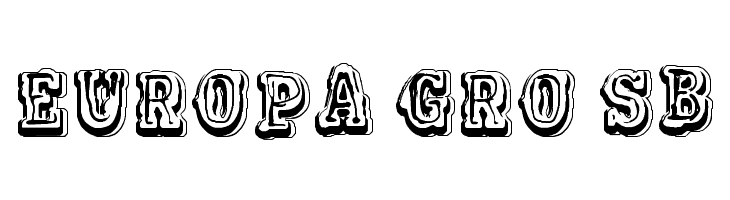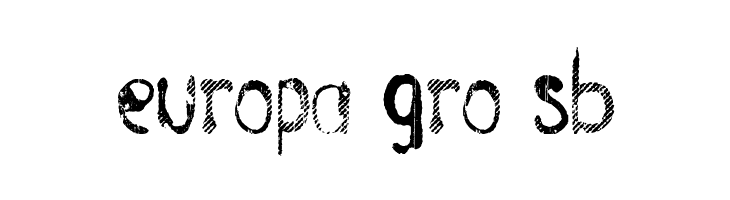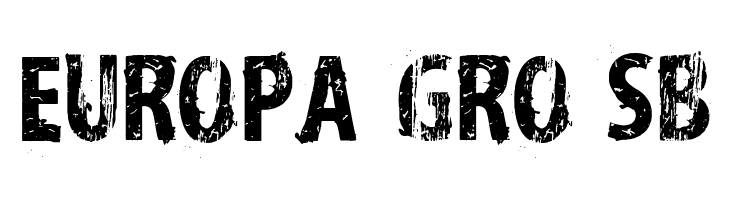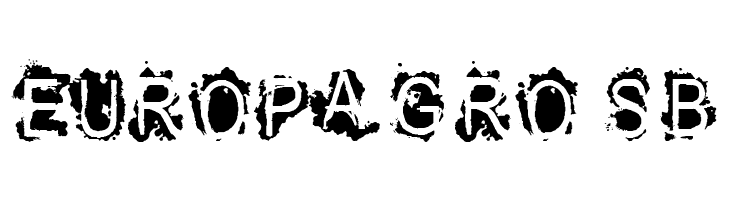
A modern, geometric font with thin lines and creative character design.
A modern, geometric font with clean lines and rounded edges, offering a playful yet sophisticated style.
A bold, rounded font with a playful and modern style.
An ornate, italicized decorative font with elaborate swirls and flourishes.
A bold, distressed font with a rough, hand-painted style.
A bold, distressed font with a halftone texture for impactful designs.
A whimsical, decorative font with a hand-drawn, vintage aesthetic.
A distressed, grunge-style font with a textured, weathered appearance.
A bold, distressed font with a grunge texture and rugged appearance.
A futuristic, geometric font with bold, angular characters and a modern aesthetic.
A bold, distressed font with a grunge style and rugged appearance.
A bold, distressed font with a futuristic, industrial style.
A decorative font with intricate flourishes and artistic embellishments.
A casual, handwritten cursive font with elegant, flowing letters.
A distressed, grungy font with bold, irregular strokes and a chaotic aesthetic.
A whimsical and artistic font with flowing, irregular strokes and dynamic forms.
A distressed, grungy font with a textured, worn appearance.
A bold, artistic font with a mix of solid and outlined characters, perfect for creative projects.
A bold, expressive font with a hand-painted, grungy style.
A decorative font with high contrast and ornate details, ideal for eye-catching designs.
A bold, dramatic Blackletter-style font with intricate detailing.
A bold, 3D geometric font with a retro-futuristic style.
A whimsical and decorative font with playful swirls and curls.
A bold, decorative font with horizontal stripes and boxed special characters.
An elegant script font with ornate swirls and calligraphic style.
A grungy, distressed font with a raw, edgy appearance and uneven, textured edges.